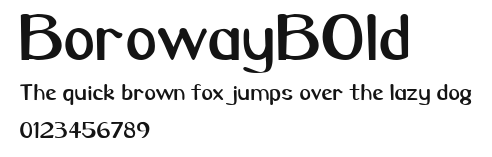
BorowayBOld Preview
• Font Name: BorowayBOld
• Font ID: Altsys Metamorphosis:BorowayBOld
• Full Font Name: BorowayBOld
• Version: Altsys Metamorphosis:8/18/91
• PostScript Name: BorowayBOld
• Character Count: 113
About BorowayBOld.ttf
BorowayBOld.ttf is a modern, elegant sans-serif font designed for ultimate readability and visual harmony. Perfect for branding, headlines, web design, and print materials.